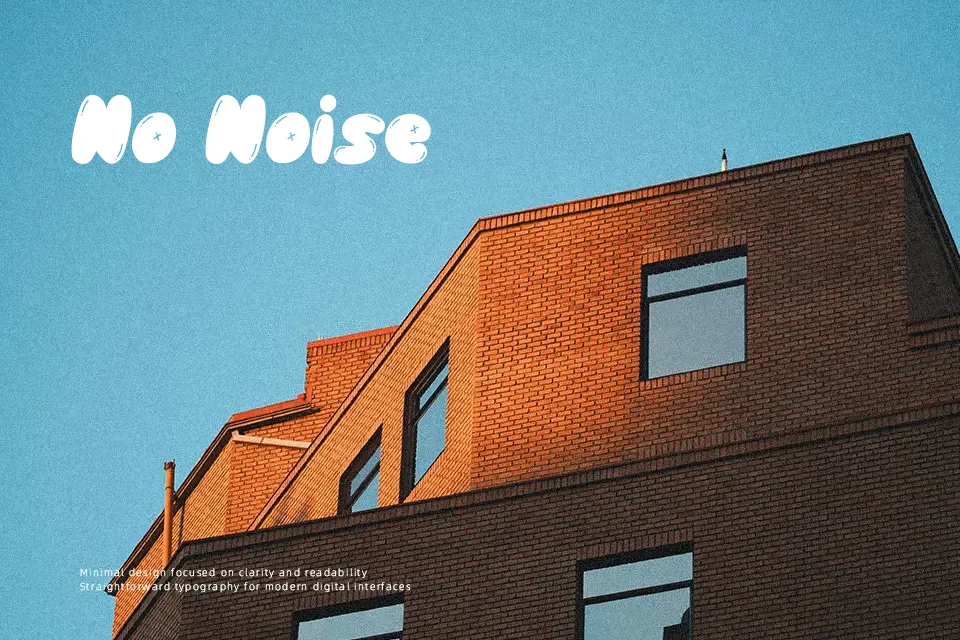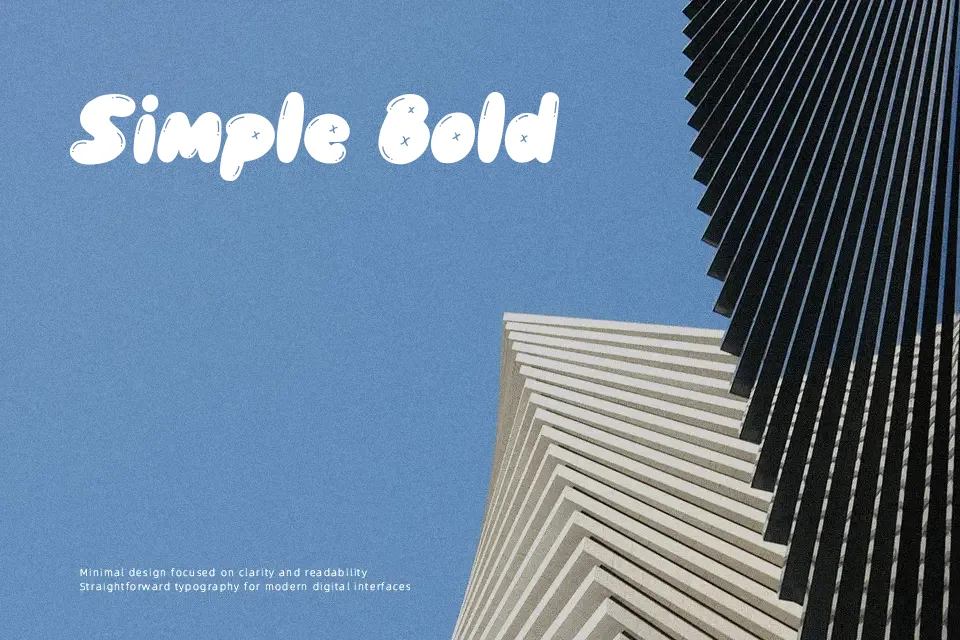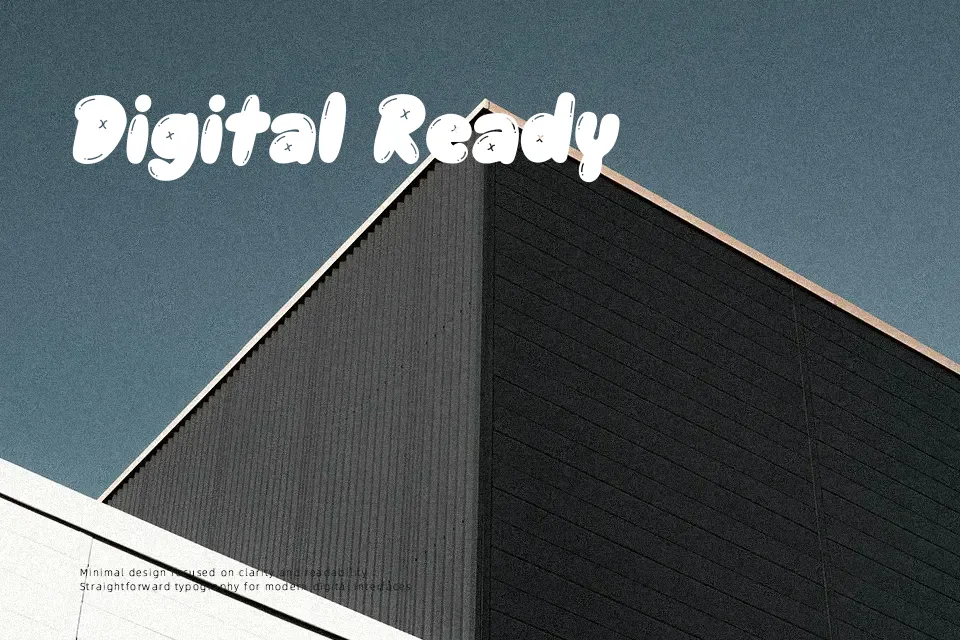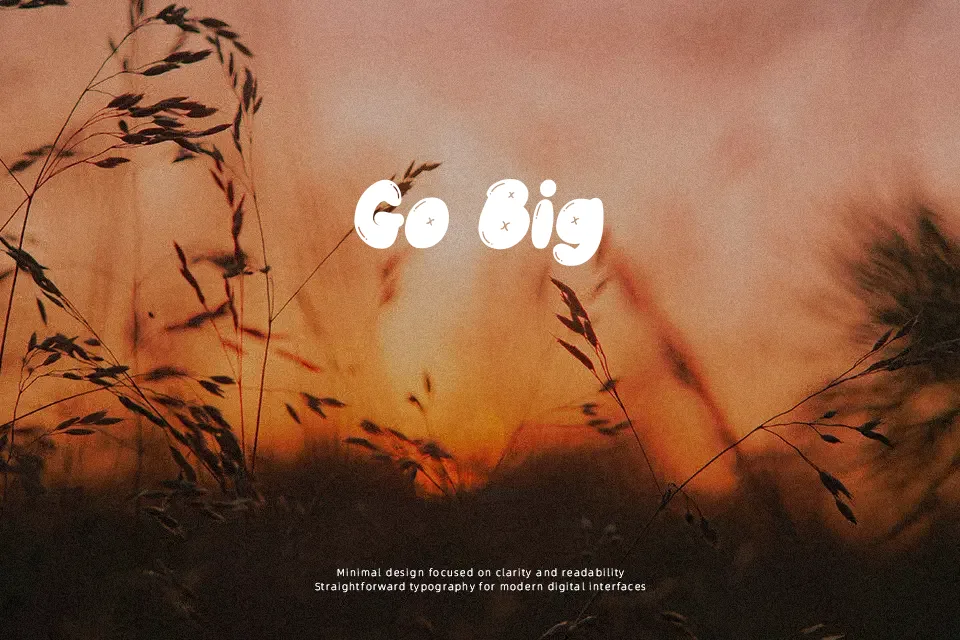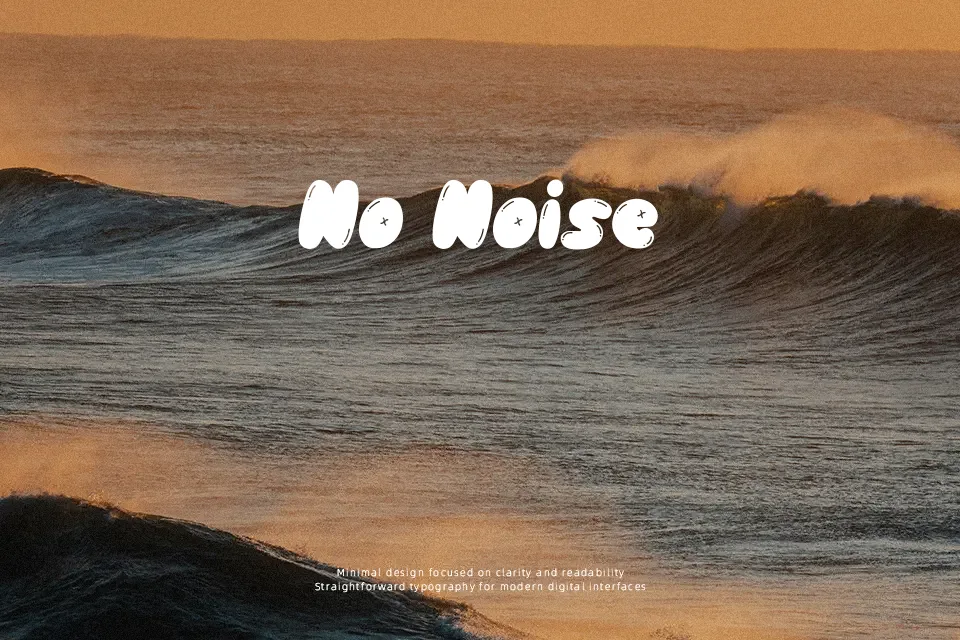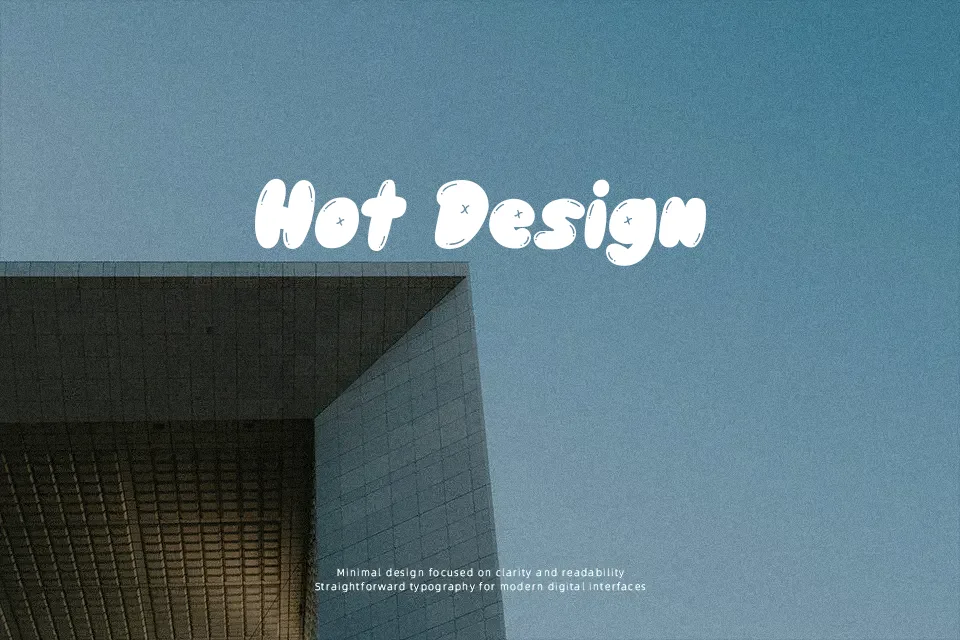
Blopy Font
Blopy Font is a thick, rounded display typeface that captures the groovy, bubbly aesthetic of 60s and 70s typography. Characterized by its plump stroke weight and incredibly tight spacing, this playful design instantly injects a youthful, upbeat energy into any layout. The informal, cartoonish structure makes it an excellent asset for children’s book covers, vibrant product packaging, and animated video titles that demand attention. While it shines in large, bold headlines and creative branding projects, its heavy, whimsical forms can become illegible at smaller sizes. Consequently, it is not recommended for body copy or serious corporate materials. Compared to standard geometric sans-serifs, Blopy offers a much warmer, handcrafted feel that prioritizes character over strict readability.
Large attention-grabbing headlines
Vibrant product packaging designs
Youth-oriented event branding
Small paragraph body text
Formal corporate identities
Minimalist luxury applications
Perfect for branding, kids, and packaging, with a cute and cartoon style.